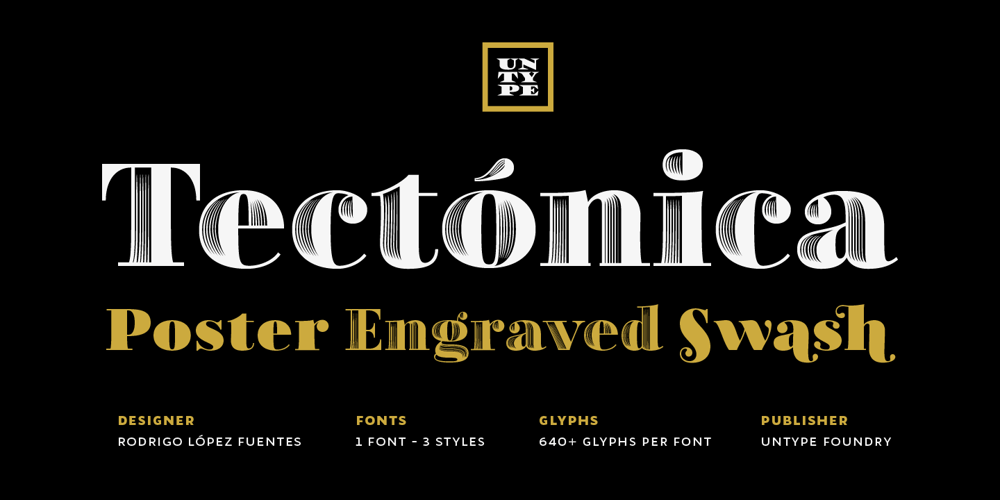
Tectónica Font Family was designed by Rodrigo López Fuentes and published by Untype. Tectónica contains 2 styles and family package options. Tectónica is an elegant and stable heavy-duty didonish typeface in three different flavors: the strong and sober Poster Style, the fancy and classic Engraved Style and the playful and sexy Swash Style, each of one includes a distinctive set of alternates, ligatures, numbers and plenty of other resources and OpenType features for your text delight. With heavy contrast and solid presence yet full of delicate details and variations, Tectónica was especially designed for being used in headings, logotypes, large text settings and display use in general where a well-founded and firm yet graceful and refined statement is needed.